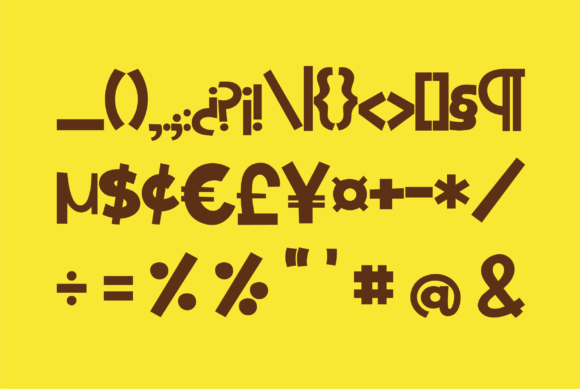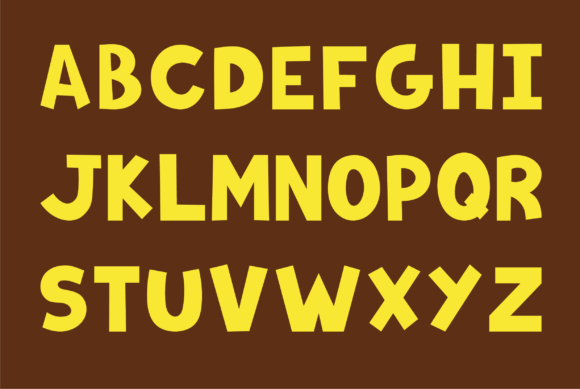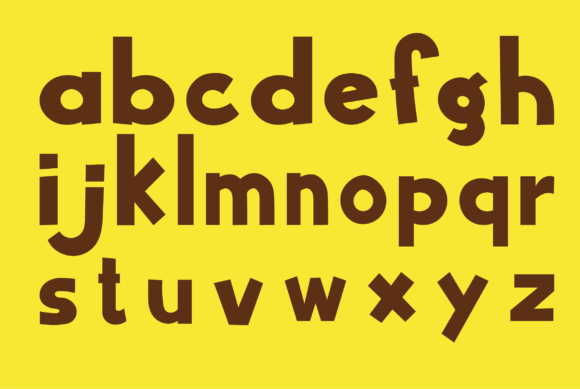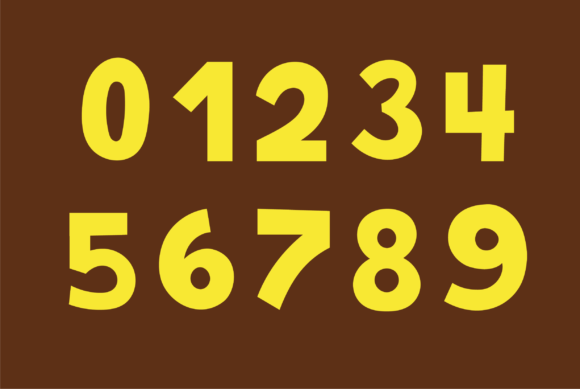
The Power of Bignilo Font: Making Your Message Loud and Clear
You’ve got a great idea for a project, and you’re bursting to share it with the world. You sit down at your desk, fingers poised over the keyboard, and suddenly the blank screen stares back at you like an empty canvas. What’s the first thing you need to get right? The font, of course! And when it comes to making a statement, few fonts can rival the impact of the Bignilo Font.
Designed to be bold and attention-grabbing, the Bignilo Font is perfect for titles, headlines, and any message that needs to be delivered with emphasis. Its chunky, big look is not just visually striking – it’s also highly effective at communicating your message to your audience. For designers, the Bignilo Font is a valuable tool for adding depth and personality to their work.
Bignilo Font Key Features
- Font Family: Bignilo Font is a modern sans-serif font family designed for digital use.
- Character Set: The font family includes a comprehensive character set, supporting over 100 languages, including Latin, Cyrillic, and Greek scripts.
- Unique Characteristics: Bignilo Font features a distinctive rounded corner design, making it suitable for use in digital interfaces, signage, and branding materials.
Bignilo Font Review
As a designer, I’ve had the chance to experiment with the Bignilo Font, and I must say it’s a unique addition to any design project. Here’s what I think:
- The Bignilo Font’s playful and whimsical nature makes it perfect for children’s books, magazines, and other projects that require a touch of fun.
- The font’s versatility is impressive, as it can be used for both body text and titles, creating a cohesive look throughout your design.
- The font’s bold and expressive strokes add a dynamic feel to any text, making it stand out in crowded designs.
- The font’s irregular shape and inconsistent letterforms can make it difficult to read in smaller sizes or at a distance.
- The font’s bold style may not be suitable for projects that require a more subtle or elegant look.
- The font’s limited character set may not be ideal for projects that require a wide range of languages or special characters.
Overall, I think the Bignilo Font is a great addition to any designer’s toolkit. While it may have some limitations, its unique personality and versatility make it a great choice for projects that require a playful and expressive look. Just be mindful of the font’s limitations and use it in contexts where it will shine.
Getting the Most Out of Bignilo Font
To get the most out of Bignilo Font, try the following tips:
Use Bignilo Font in combination with bold and italic text to create visual interest.
Experiment with different font sizes to create a sense of hierarchy in your design.
Pair Bignilo Font with other fonts to create a unique and visually appealing combination.
Bignilo Font is ideal for:
Headings and titles
Logos and branding
Invitations and event promotions
Alternatives to Bignilo Font
Montserrat is a modern sans-serif font designed for digital use. It’s a great alternative to Bignilo Font for designers who want a clean and minimalist look. Montserrat is more geometric and structured, making it perfect for headings and titles.
Comparison to Bignilo Font: Montserrat is more modern and sleek, while Bignilo Font has a more vintage and elegant feel. Montserrat is also more versatile and can be used in a wide range of designs, while Bignilo Font is more suited for luxury and high-end brands.
Lato is a clean and elegant sans-serif font that works well for both body text and headings. It’s a great alternative to Bignilo Font for designers who want a font that’s easy to read and visually appealing. Lato has a more rounded and friendly feel, making it perfect for designs that require a more approachable tone.